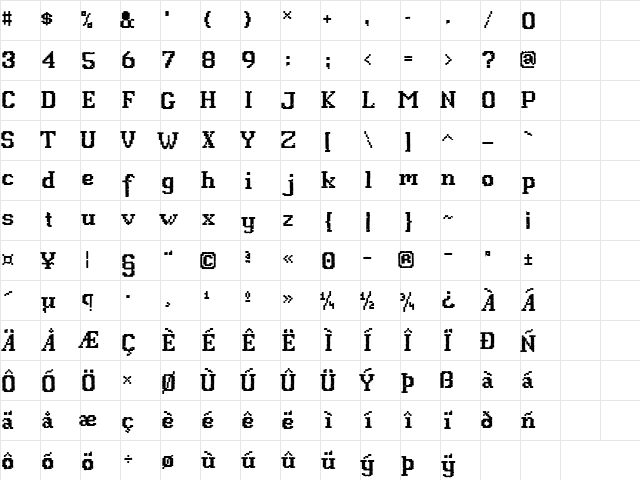
P22 Folk Art Stitch Regular
Design Context for P22 Folk Art Stitch Typeface
P22 Folk Art Stitch is a composed and adaptable typeface that performs quietly and consistently across a wide range of design contexts.